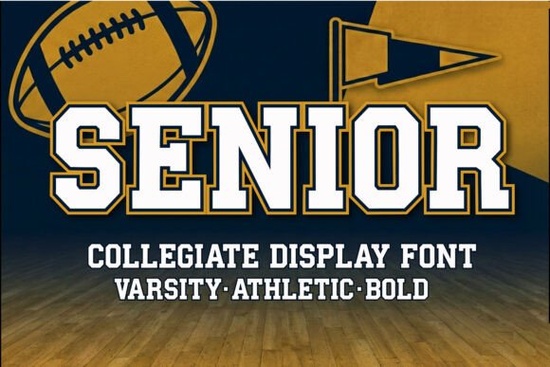
Senior Font is a standout choice for anyone looking to add a strong, confident look to their designs. This bold display typeface draws inspiration from classic varsity and athletic lettering, making it ideal for projects that need a sense of tradition and power. Whether you're working on school branding, team logos, or merchandise, Senior delivers a timeless sports aesthetic that feels both modern and authoritative.
The font's blocky structure and sharp angles give it a commanding presence, while its clean geometry ensures it remains highly readable. This balance makes it perfect for headlines, posters, and any design where visual impact matters. Its sturdy construction also means it holds up well in different sizes and formats, from large banners to small labels.
If you're a designer, craftsperson, or small business owner, you'll find that Senior Font fits naturally into a wide range of creative projects. It’s especially useful for print-on-demand sellers who want to offer unique, high-impact designs. The font’s versatility allows it to work in both digital and physical formats, giving you more options for your creative output.
Why Choose Senior Font for Your Projects?
Senior Font stands out because of its ability to convey strength and confidence without sacrificing clarity. Its bold style makes it perfect for anything that needs to grab attention, whether it's a sports team logo, a motivational poster, or a product label. The font’s design is rooted in traditional athletic lettering, which gives it a nostalgic feel while still feeling fresh and relevant.
For designers, this font can be a great addition to their toolkit. It works well with other fonts like Distressed Bold Sans or Nordic Omen, allowing for creative combinations that highlight different aspects of a design. If you're looking for something with a more rugged or vintage feel, Dust Stamp could be a good match. For playful or child-friendly designs, Creative Children offers a fun alternative.
How to Use Senior Font Effectively
When using Senior Font, consider the context of your project. It works best in situations where you want to make a strong visual statement. For example, it can be used as a headline for a sports event flyer, a logo for a school team, or a tagline for a product. Because of its bold nature, it’s not typically used for body text but shines when used in larger sizes.
Pairing it with simpler fonts can help balance the design. A clean sans-serif or serif font can provide contrast and make the overall layout more readable. Experiment with different color schemes to see what works best black on white, or bold colors against neutral backgrounds often produce the strongest results.
For those new to using display fonts, starting with a single line of text in Senior can help you get a feel for how it looks. Once you’re comfortable, you can expand its use across multiple elements in your design. Always test the font at different sizes to ensure it maintains its clarity and impact.
When browsing, take note of how each font looks in different contexts. Some may work better for specific industries or themes. For instance, if you're designing for a children's brand, you might prefer a more playful font, while a sports team might benefit from something stronger and more structured.
Using Senior Font can elevate your designs with its bold, confident style. Whether you're creating for a school, a sports team, or a personal project, this font offers a powerful way to express your vision. With its strong structure and versatile use, it’s a valuable addition to any designer’s collection.
- Test the font at different sizes to ensure readability.
- Pair it with simpler fonts for balanced designs.
- Explore alternatives like Distressed Bold Sans or Nordic Omen for variety.
- Use it strategically for headlines, logos, or impactful statements.